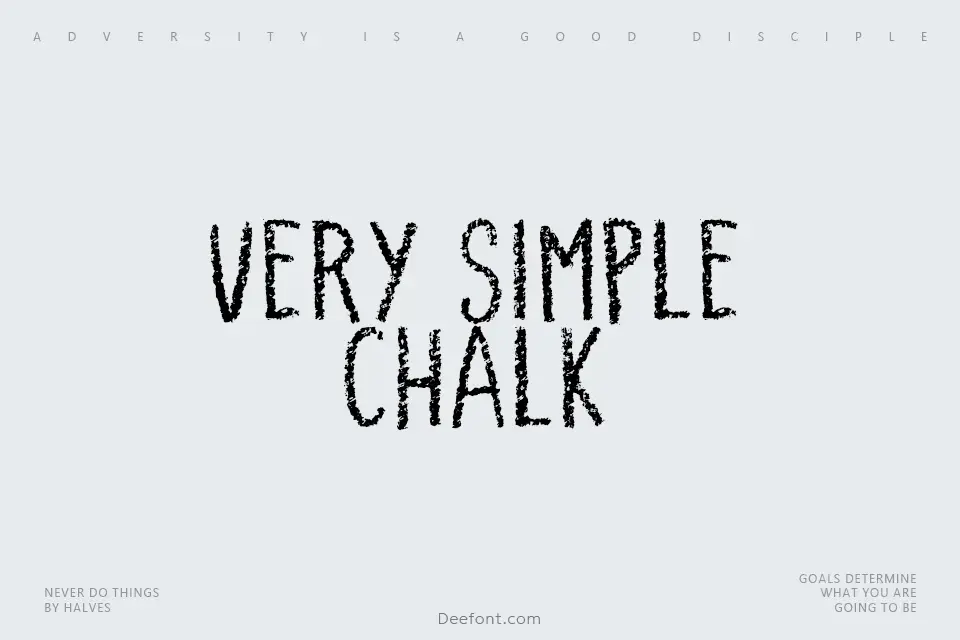
Very Simple Chalk Font
Very Simple Chalk is a charming handwritten display font that mimics authentic chalk writing on blackboards with its rough, textured strokes and organic letterforms. The font features casual, irregular character shapes that evoke the natural imperfections of chalk, making it ideal for creative posters, children’s designs, holiday decorations, event invitations, and playful headlines. Its informal style brings personality to packaging, menus, greeting cards, and DIY-inspired projects seeking genuine handwritten warmth and chalkboard aesthetic appeal.